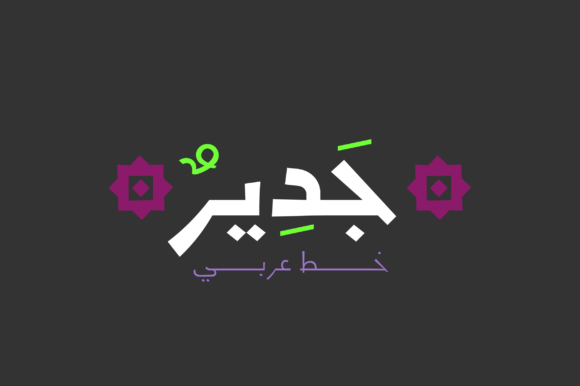
Prepare to be mesmerized by Jadeer Font, the captivating Arabic display font that exudes elegance and sophistication. With its graceful curves and distinct charm, Jadeer adds a touch of artistic brilliance to your creative endeavors.
Unleash your advertising prowess with Jadeer Font, the perfect companion for creating eye-catching ads that resonate with your audience. Its inherent beauty commands attention, ensuring your message stands out in a sea of mediocrity.
Let your publications shine with Jadeer Font's enchanting presence. Its contemporary flair adds a modern touch to magazines, brochures, and flyers, leaving a lasting impression on your readers.
Harness the power of Jadeer Font in your web design projects and watch your website come alive. Its clean lines and legible characters enhance user experience, making your content shine, and captivating your visitors.
Jadeer Font's versatility extends beyond traditional advertising and design. Its unique charm finds a home in logos, branding, social media posts, and even merchandise. Infuse your creations with a touch of authenticity and artistic flair.
Elevate your creations to new heights with Jadeer Font, the ultimate choice for designers seeking to make a statement. Its timeless beauty and versatility make it an indispensable tool for any creative toolbox.